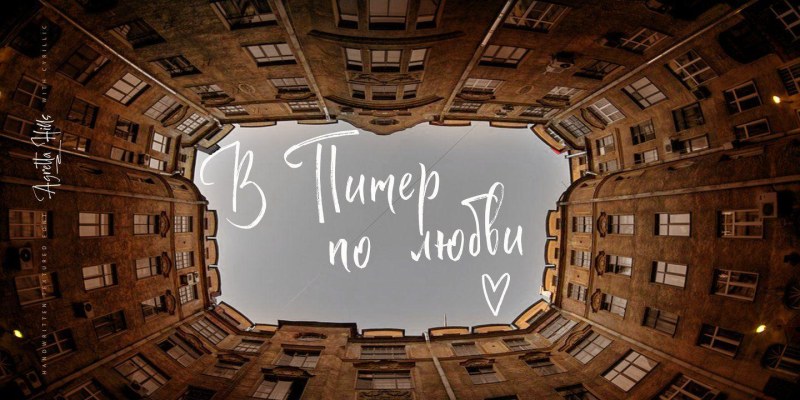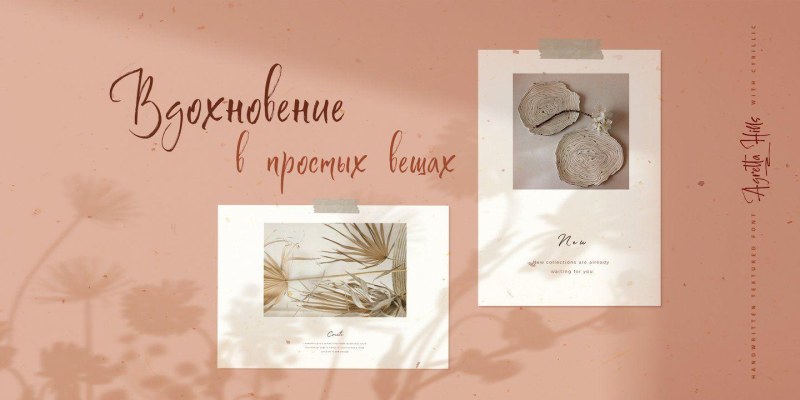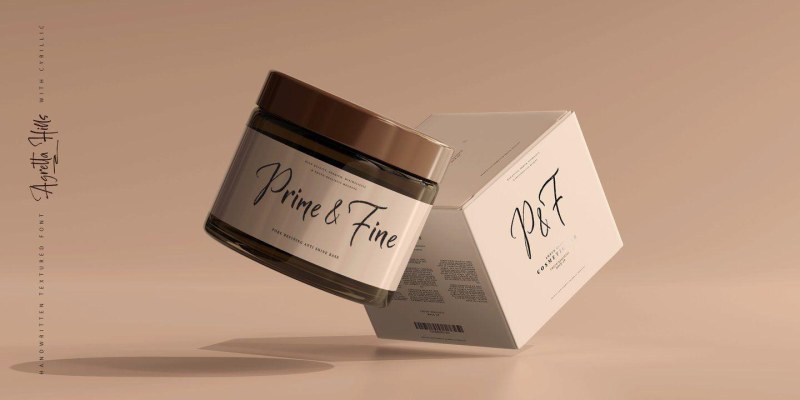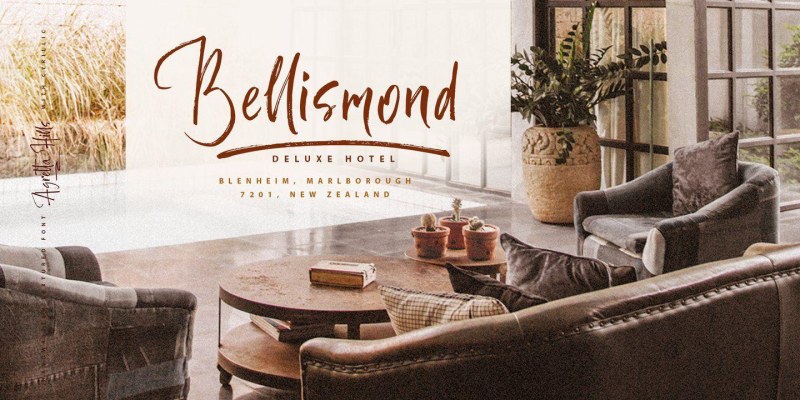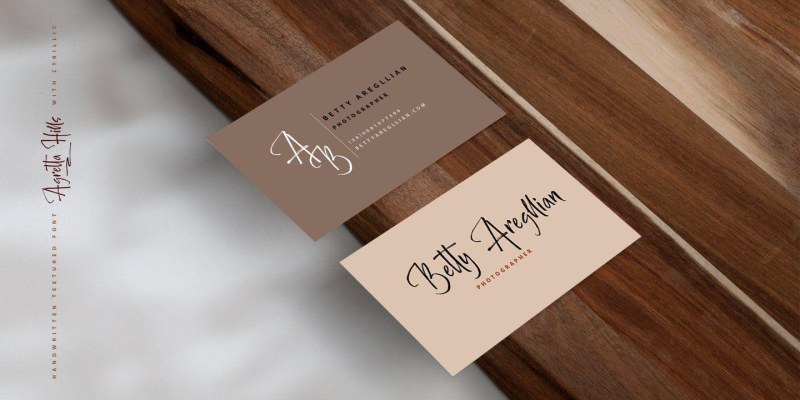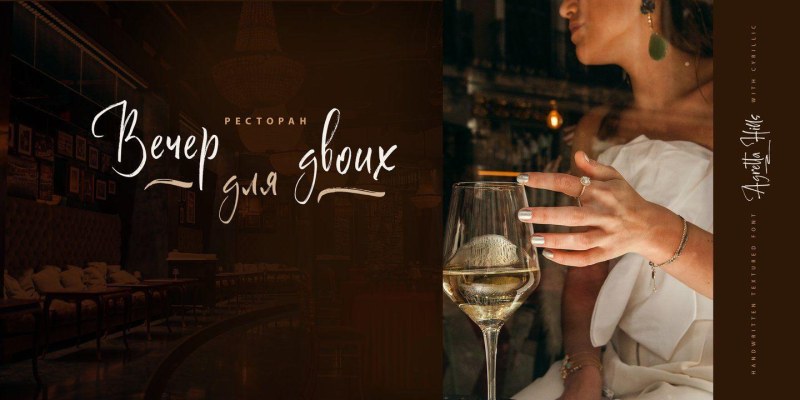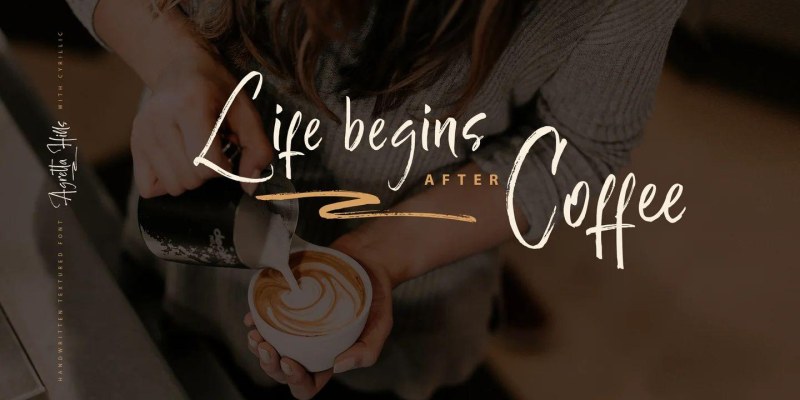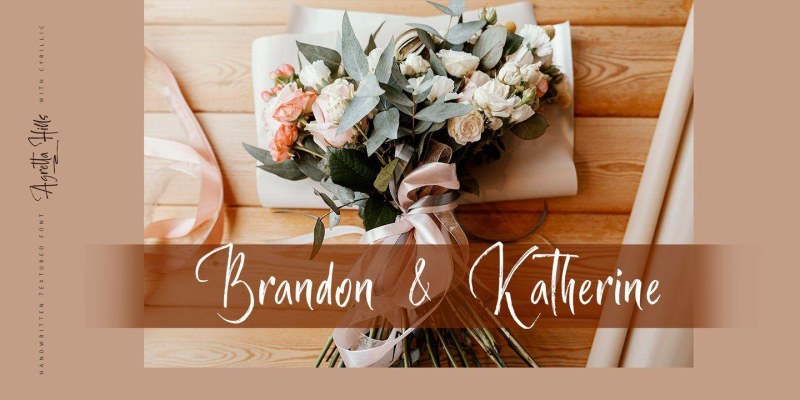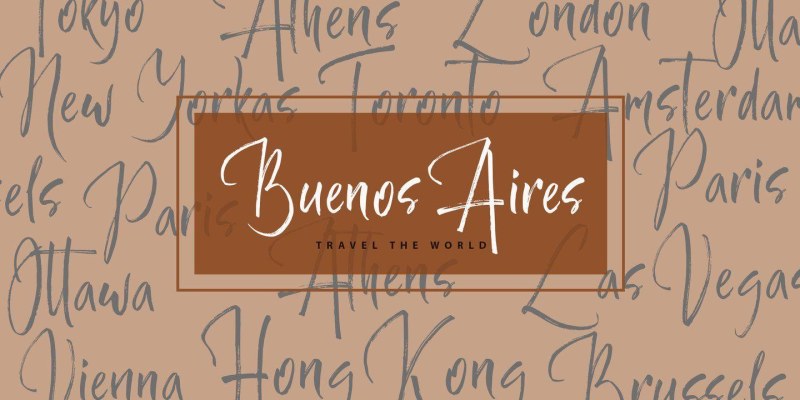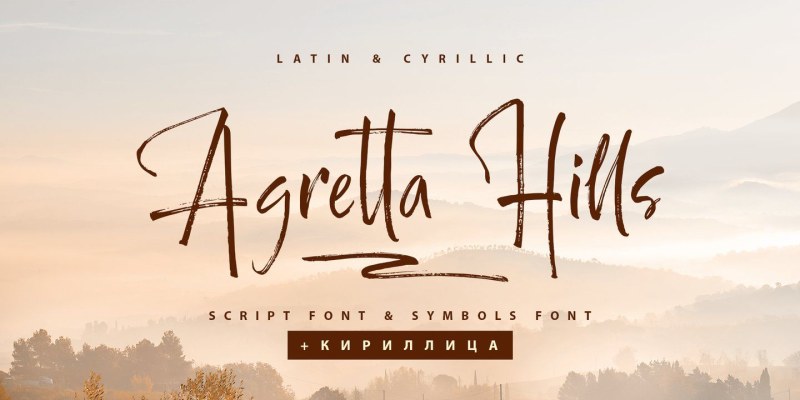
Agretta Hills Font Family
Agretta Hills Cyrillic Textured Script Font adds hand look style to all your design projects: logos, signatures, labels, packaging design, and blog headlines. Also, it will look great in mugs, cards, gorgeous typographic designs, wedding stationery, and much more.
An additional font Agretta Hills Symbols can help you to make a lot of pretty designs and logos.
Agretta Hills script includes a full set of uppercase and lowercase letters, numerals, a large range of punctuation, and 16 ligatures, giving a realistic hand-lettered style.
The Cyrillic part of the font contains the uppercase letters and lowercase letters and 16 ligatures, giving a realistic hand-lettered style.
Agretta Hills Symbols is a font with over 36 unique, hand-drawn elements and swashes that can help to make your design more original.
A different symbol is assigned to every uppercase or lowercase standard character plus numbers 0-9 so you do not need graphics software just simply type the letter you need.
Multilingual Support for 32 languages: Latin glyphs for Afrikaans, Albanian, Basque, Bosnian, Catalan, Danish, Dutch, English, Estonian, Faroese, Filipino, Finnish, French, Galician, Indonesian, Irish, Italian, Malay, Norwegian Bokmål, Portuguese, Slovenian, Spanish, Swahili, Swedish, Turkish, Welsh, Zulu. And Cyrillic glyphs support Russian, Belorussian, Bulgarian, Ukrainian, and Kazakh languages.
Agretta Hills Font Family is a Script And Handwritten font that brings a professional and versatile look to your projects. Agretta Hills Cyrillic Textured Script Font adds hand look style to all your design projects: logos, signatures, labels, packaging design, and blog headlines.